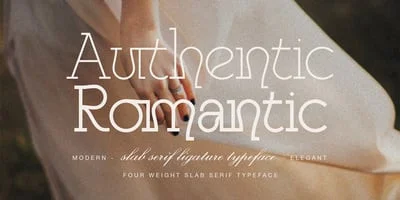
Authentic Romantic Font
Authentic Romantic Font is ideal for heartfelt wedding invitations, genuine love letters, intimate personal branding, sincere relationship counseling, romantic retreat materials, authentic couple photography, honest dating platforms, meaningful anniversary celebrations, tender family projects, and genuine applications that celebrate real love and authentic emotional connection.
What makes Authentic Romantic Font truly exciting is its genuine capture of heartfelt emotion and sincere romantic expression that speaks to the deepest human need for authentic love and meaningful connection in our relationships. This exceptional typeface embodies the essence of true romance with its tender letterforms and emotionally honest character that convey both vulnerability and strength in love. The font's authentic personality and relationship-focused design make it perfect for brands seeking to communicate genuine emotion, real intimacy, and the transformative power of authentic love that builds lasting connections through honesty, trust, and emotional authenticity.
The Authentic Romantic Font family includes multiple weights and styles: Light, Regular, Medium, Bold, and Heartfelt variations designed for maximum emotional impact. Each family member maintains the distinctive genuine character while offering flexibility for diverse romantic applications and authentic love branding systems. The comprehensive character set supports emotional typography needs and romantic design elements, making it suitable for international love communications.
When you choose Authentic Romantic Font, you're selecting a typography love letter that delivers genuine romantic credibility and authentic emotional expression to every heartfelt project. This sincere typeface excels in applications where real emotion and authentic connection are paramount, delivering exceptional romantic appeal while maintaining emotional authenticity. Whether you're designing wedding materials, relationship brands, romantic campaigns, or love-focused marketing content, this font provides the authentic romance and genuine emotional depth that resonates with couples who appreciate real love, honest communication, and the beautiful vulnerability that creates lasting romantic partnerships built on trust and authentic emotional connection.